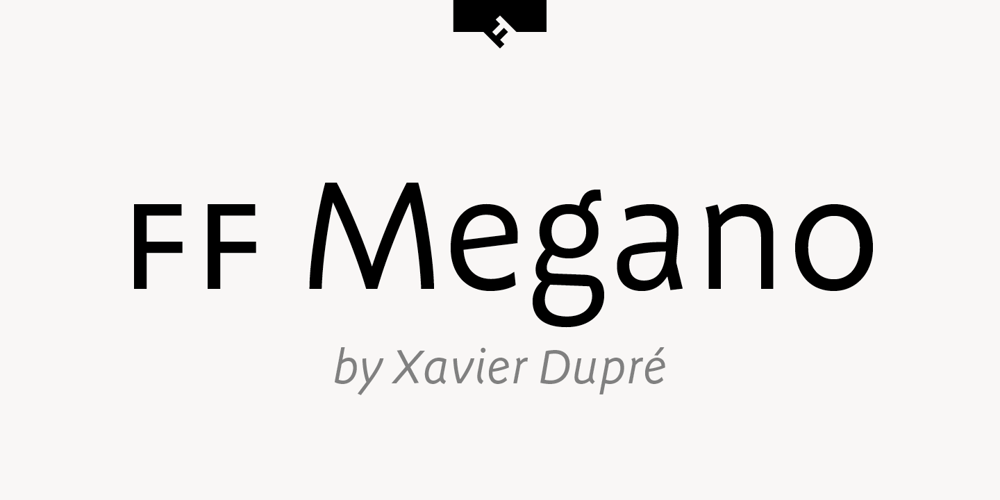
FF Megano
FF Megano font
FF Megano Font Family was designed by Xavier Dupré and published by FontFont. FF Megano contains 11 styles and family package options. French type designer Xavier Dupré created this sans FontFont in 2005. The family has 11 weights, ranging from Light to Black (including italics) and is ideally suited for advertising and packaging, editorial and publishing as well as logo, branding and creative industries. FF Megano provides advanced typographical support with features such as ligatures, small capitals, alternate characters, case-sensitive forms, fractions, and super- and subscript characters. It comes with a complete range of figure set options – oldstyle and lining figures, each in tabular and proportional widths.